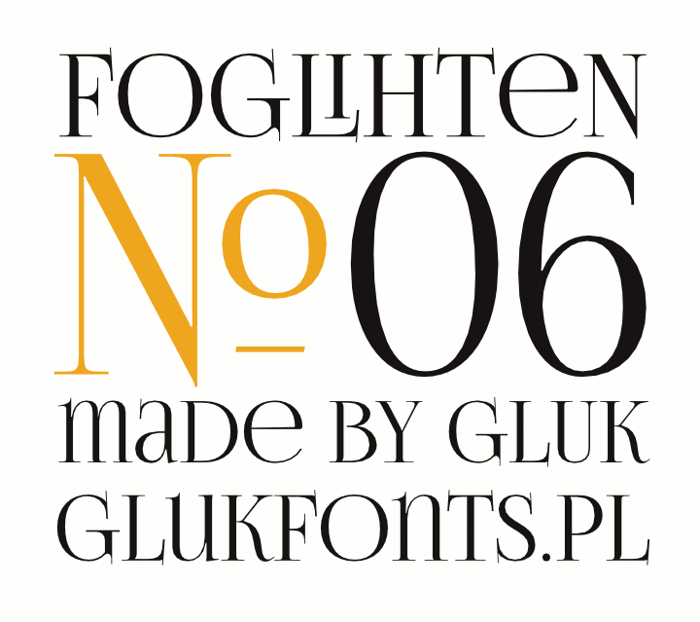
FoglihtenNo06 Font
06.12.2013 - new version with new Ligatures and some Errors corrected
I absolutely love this font(: I can't wait to use it
I love the way certain letters following other certain letters fit into each other, such as "L" and "i" on the word Foglighten - but sadly, it hasn't worked on my pc. I continue to enjoy this font anyway - thanks
This is so perfect, Love!
This font brings me happiness just looking at it. Totally obsessed, love it to pieces.
Classy.
Love!
Love that ( <3 )
This is gorgeous!